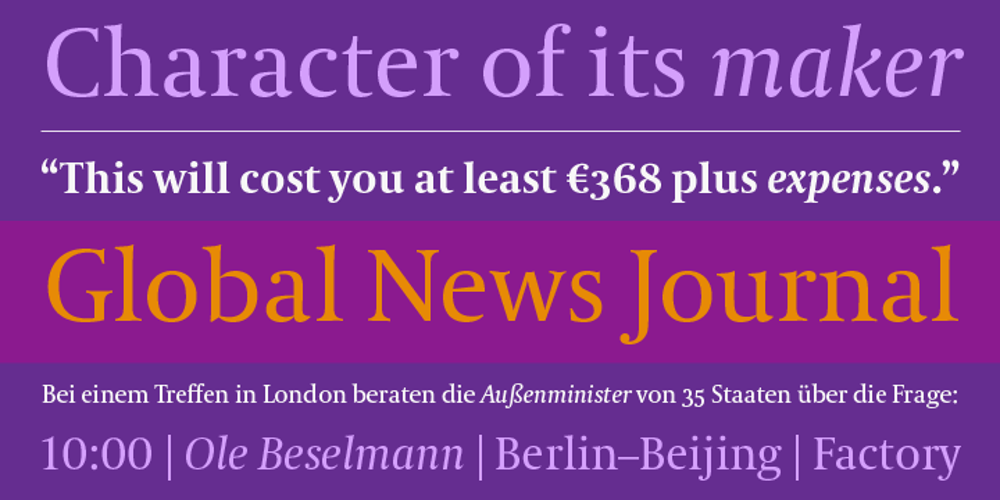
Coranto 2 Font Family was designed by Gerard Unger and published by TypeTogether. Coranto 2 contains 8 styles and family package options. Now available as Opentype font with extended character set, Coranto 2. It is originally based on Unger’s typeface Paradox, and arose from a desire to transfer the elegance and refinement of that type to newsprint. Coranto 2 has a larger x-height and in many places has been made more robust. Over the past 25 years newspaper production has seen spectacular improvements in paper and print quality, the introduction of colour printing, and vastly better register. Newspaper production still demands a lot of letter forms, but advanced printing brings out details better and makes typography more appealing to readers. For text type the newspaper is no longer an environment in which survival is the chief assignment. Today, newspapers are not merely a matter of cheap grey paper, thin ink and super-fast rotary printing, and type design no longer has to focus on surviving the mechanical technology and providing elementary legibility. Now there is also room to create an ambience, to give a paper a clearer identity of its own; there is scope for precision and refinement. One consequence of this is that newspaper designers can now look beyond the traditional group of newsfaces. Conversely, a newsface can be used outside the newspaper — not an uncommon occurrence. The update to this beautiful font family, Coranto 2, includes the addition of over 250 glyphs featuring full Latin A language support, new ligatures, 4 sets of numerals, arbitrary fractions and superiors/inferiors. Furthermore, kerning was added and fine tuned for better performance.